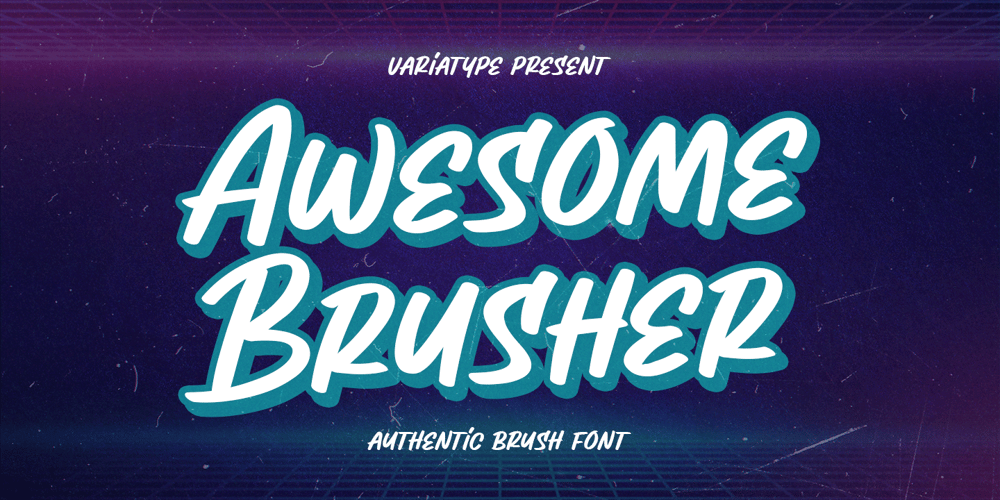
Awesome Brusher Font Family was designed by Mukhlis Muhammad and published by Variatype. Awesome Brusher contains 1 styles and family package options. Introducing Awesome Brusher the iconic street brush font that is designed for headline use, printed on t-shirts, hoodies, packaging, poster, advertisement, branding, and much more. Perfectly match your design project with an urban or street-style theme.FONT FEATURES Additional Accents 66 Languages Kerning Alternates SOFTWARE RECOMMENDATION Adobe Photoshop CC 2020 or later Adobe Illustrator CC 2020 or later